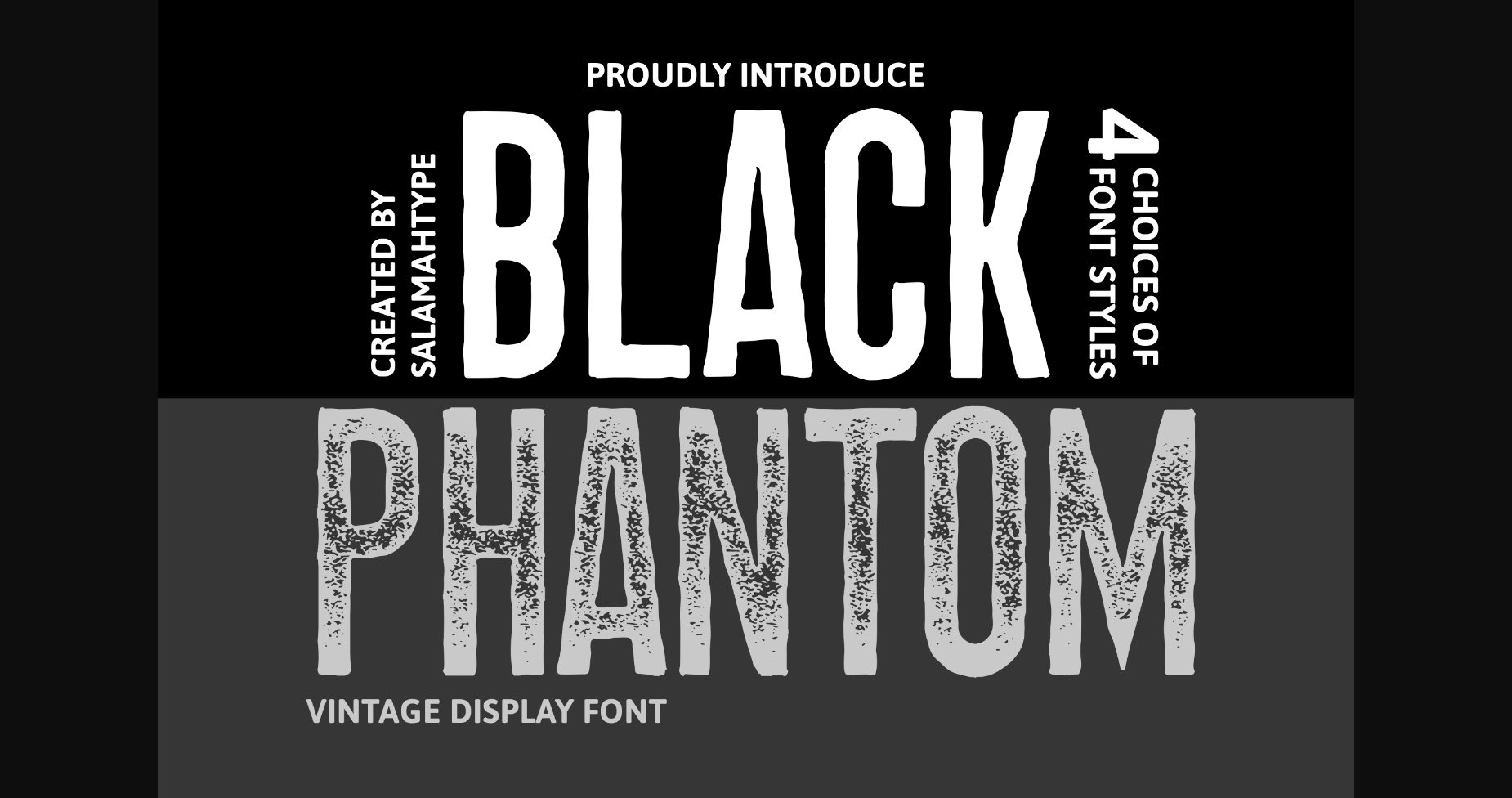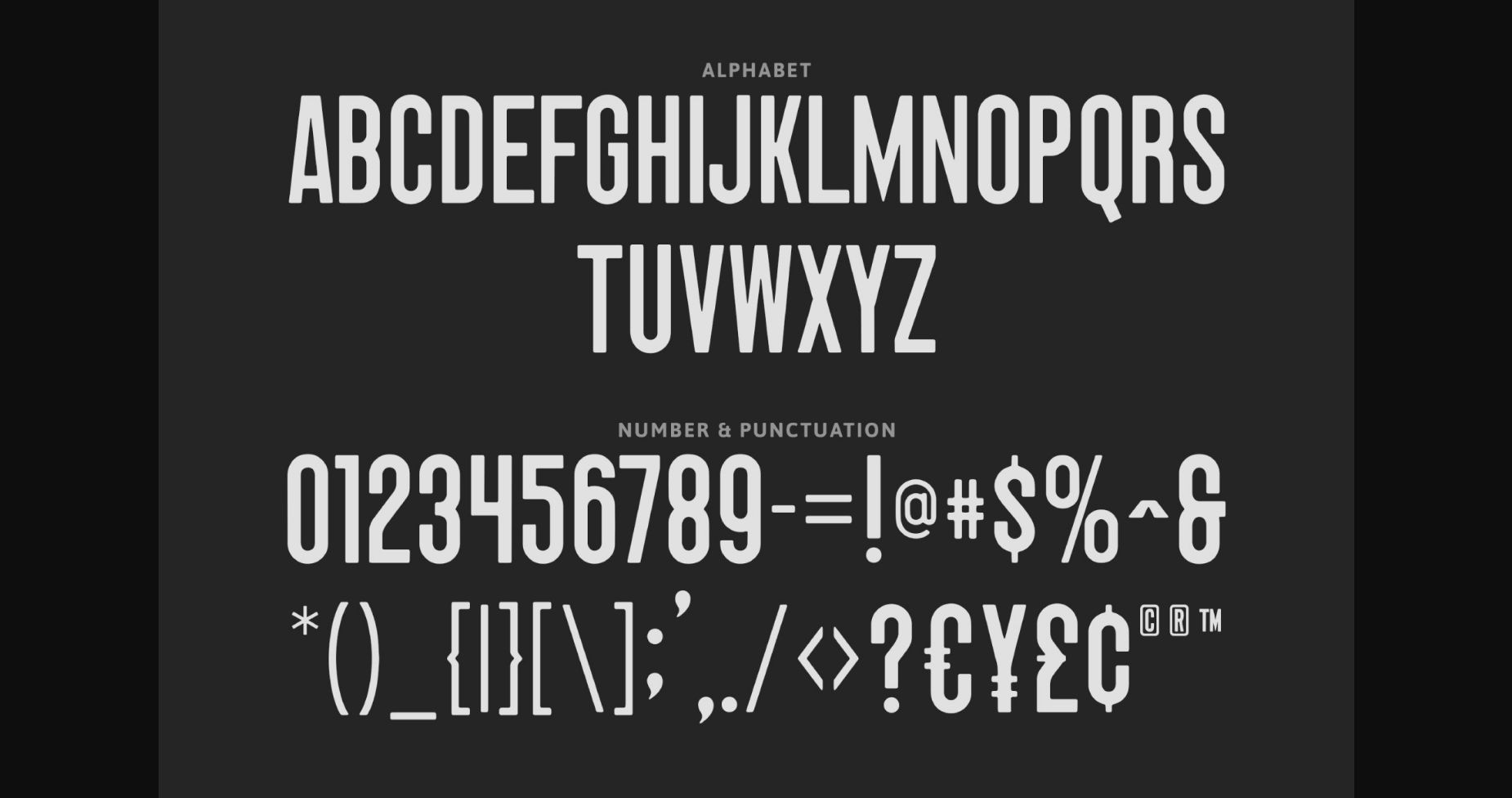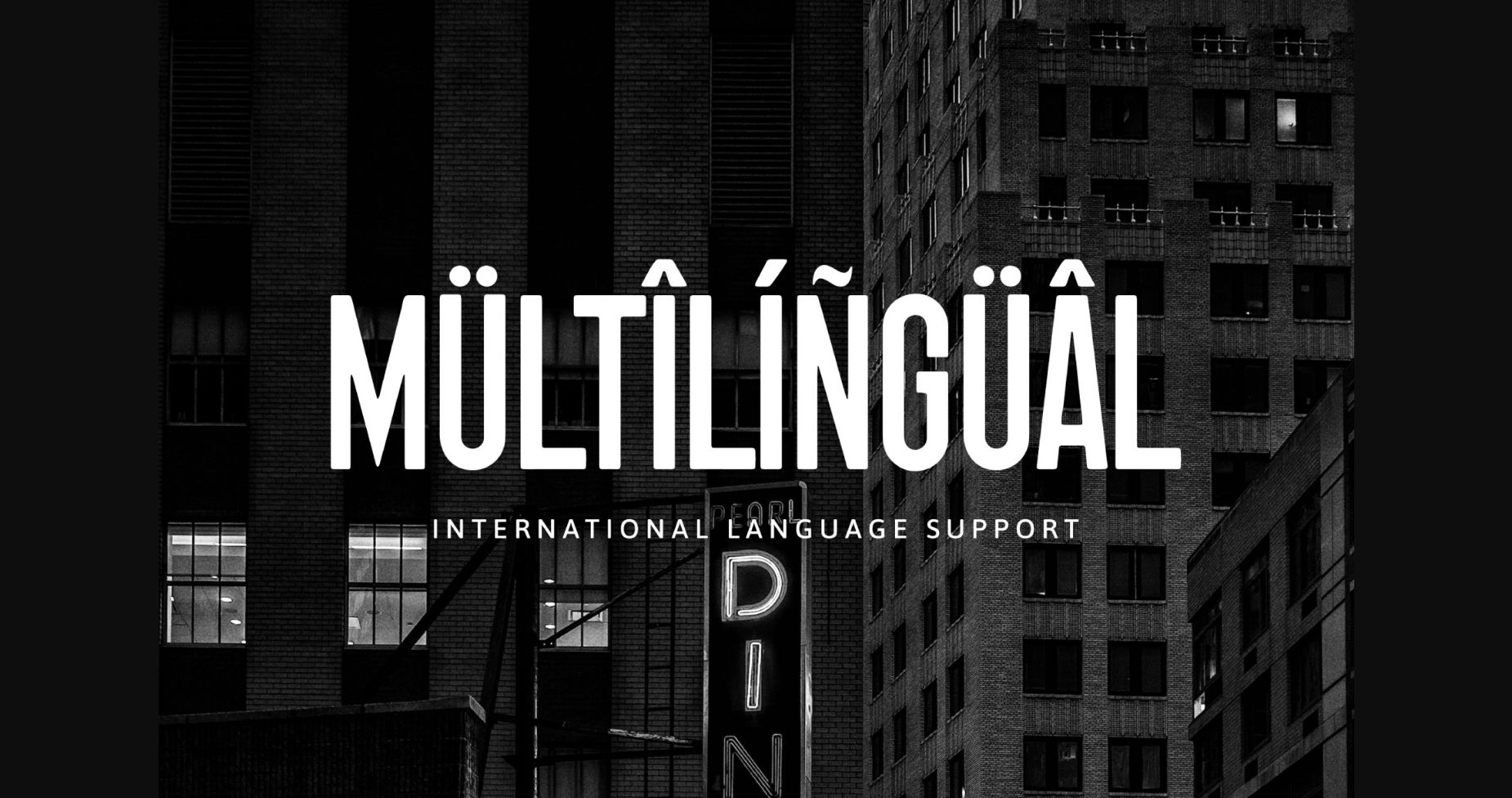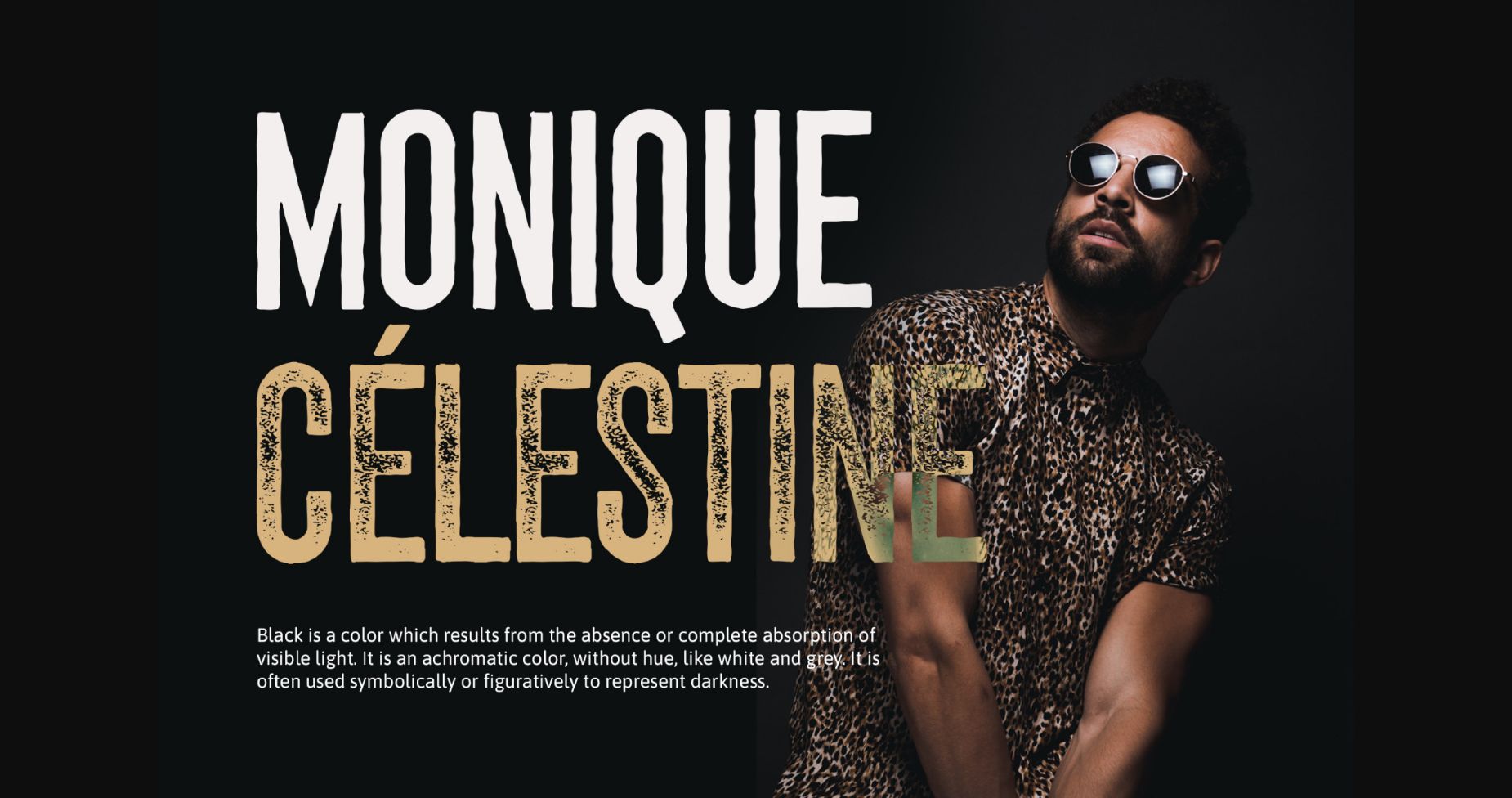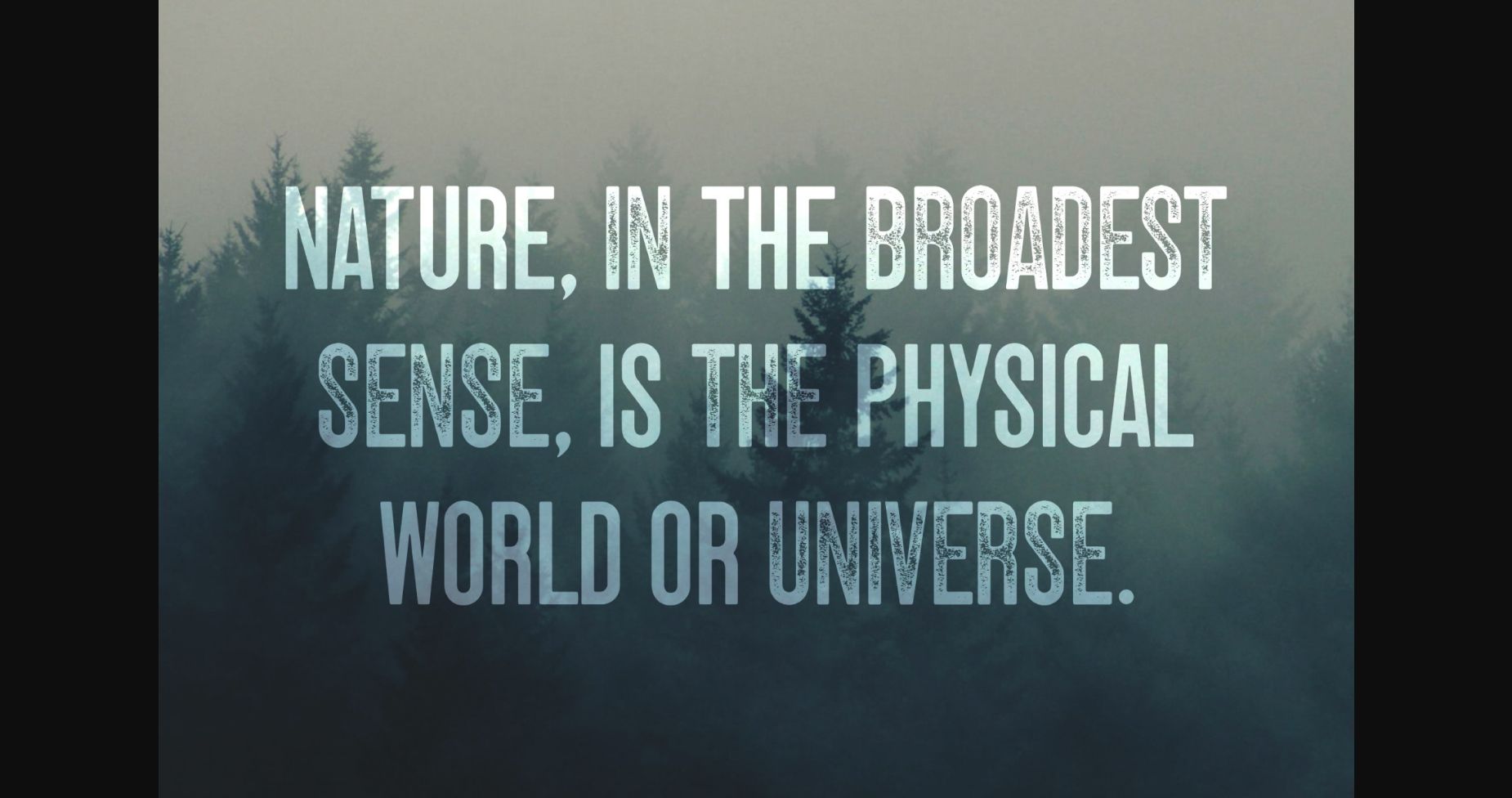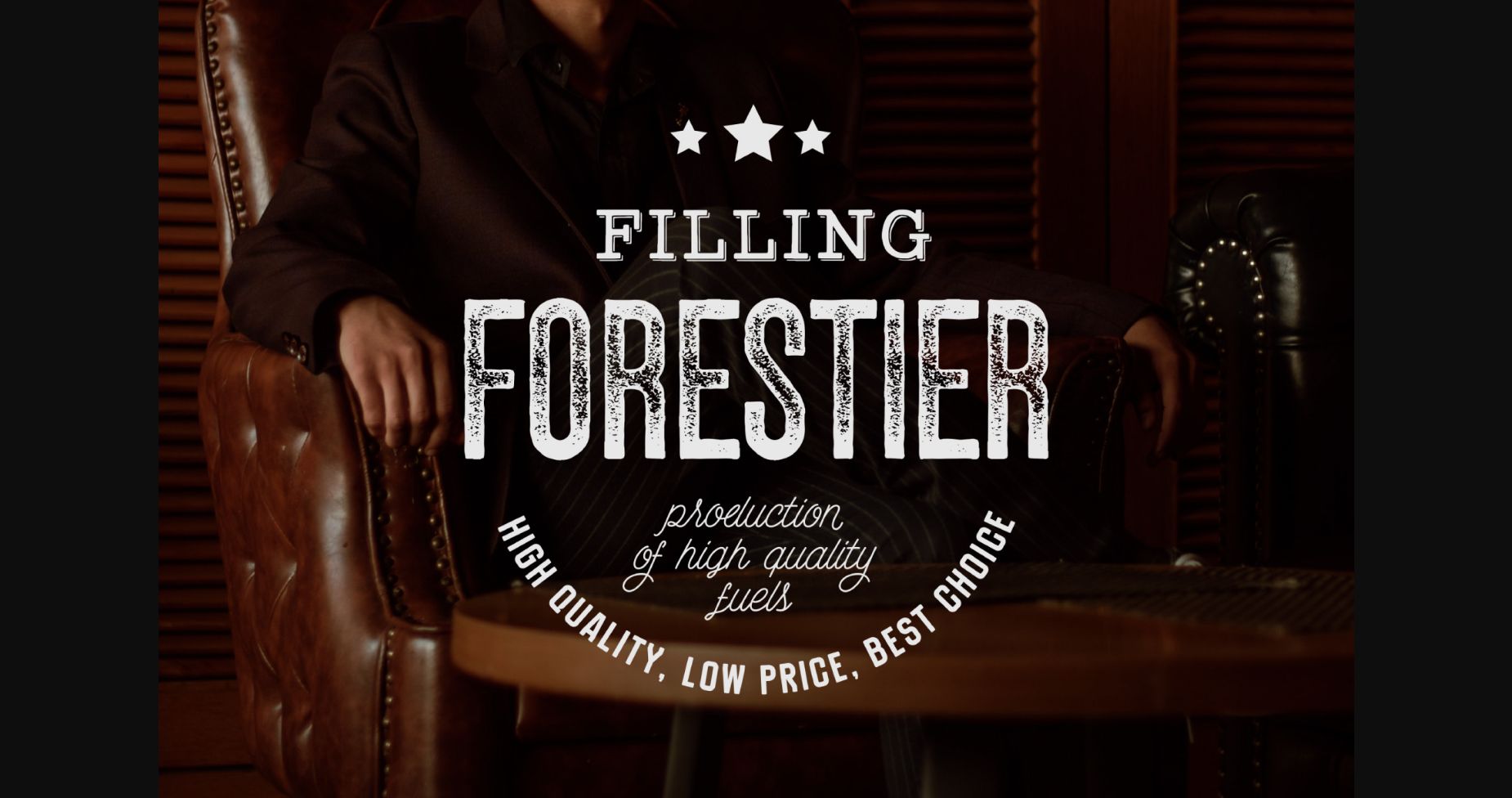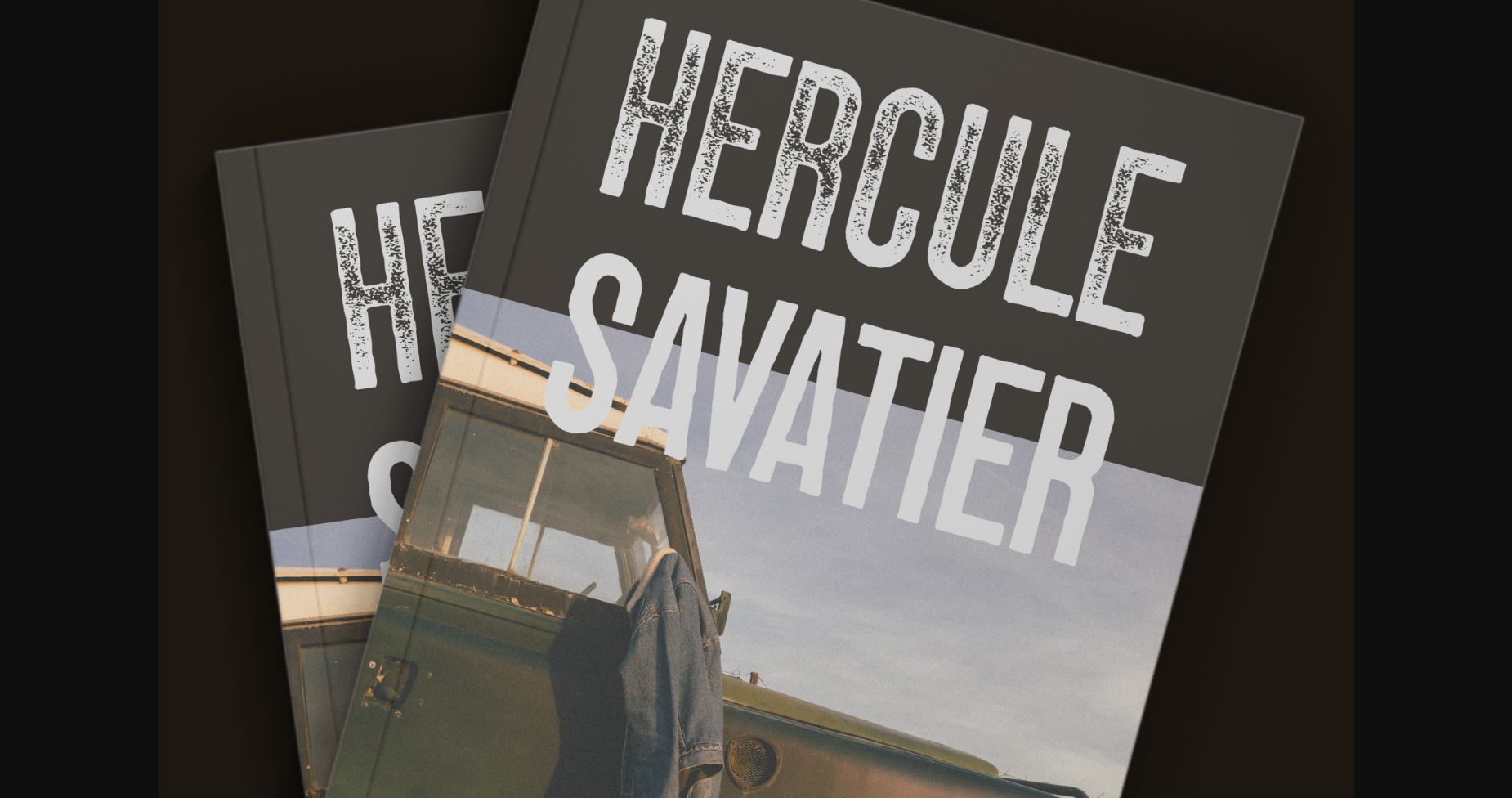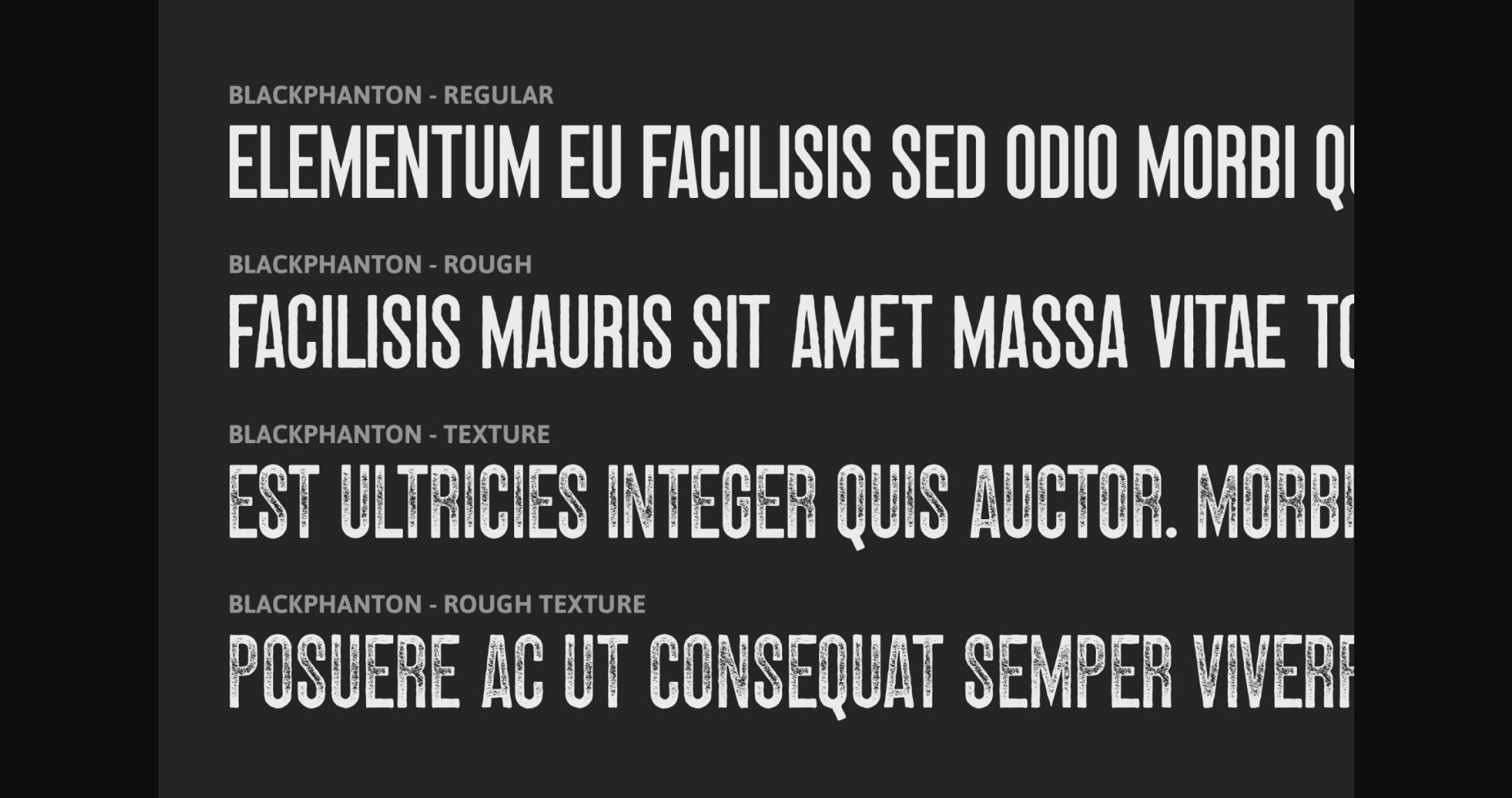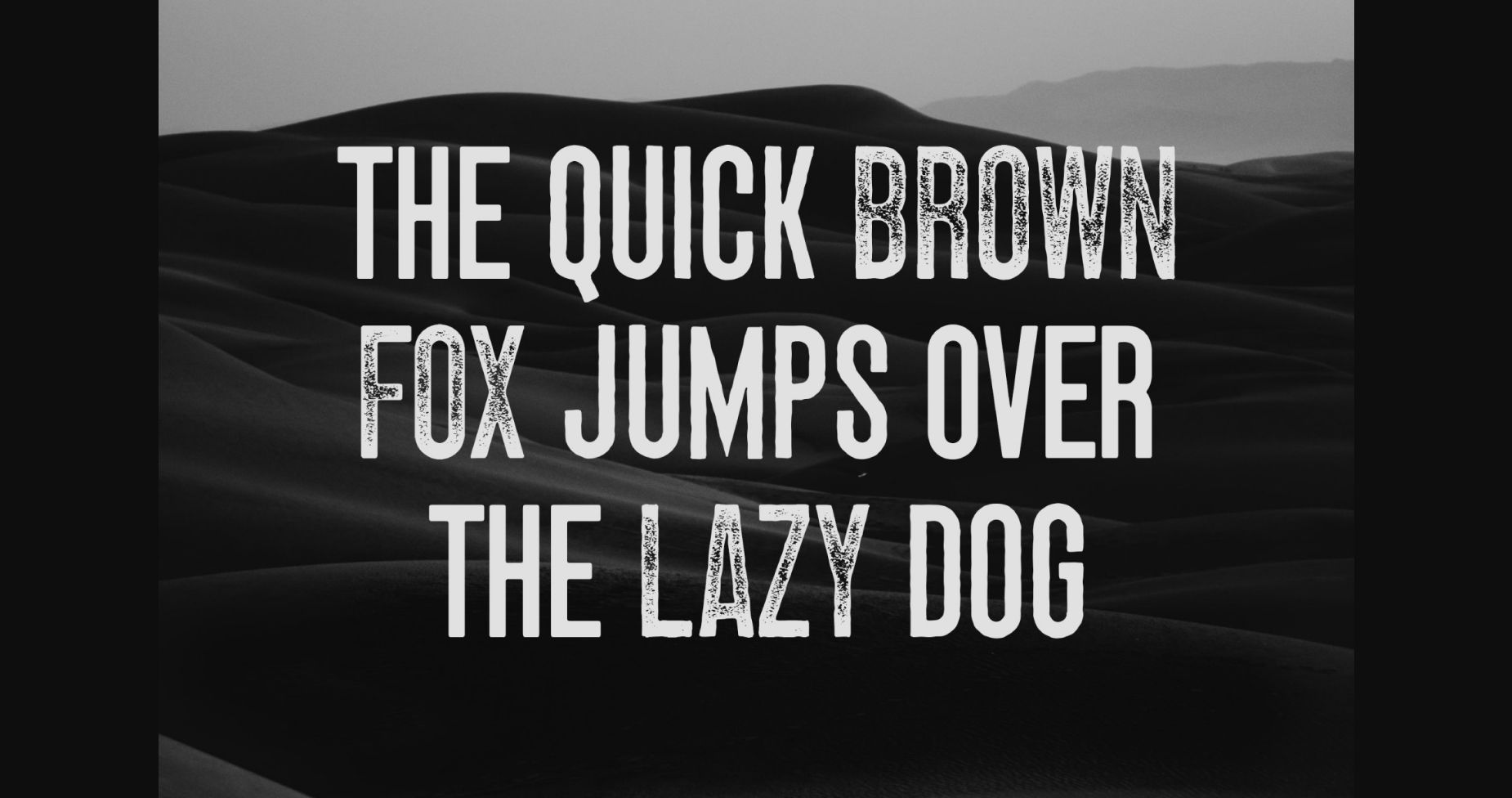
Black Phantom Font
About Black Phantom Font
“BLACK PHANTOM” – display sans font with 4 styles included (Clean and Stamp/Textured). Perfect for branding projects, logos, labels, and more. Textures like rust core, will make your design, product, logo, or label more cool, unique, and meaningful.